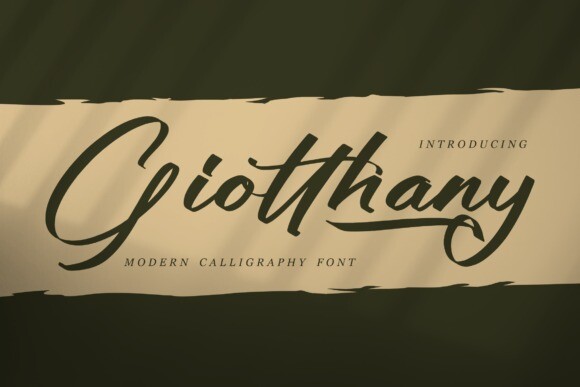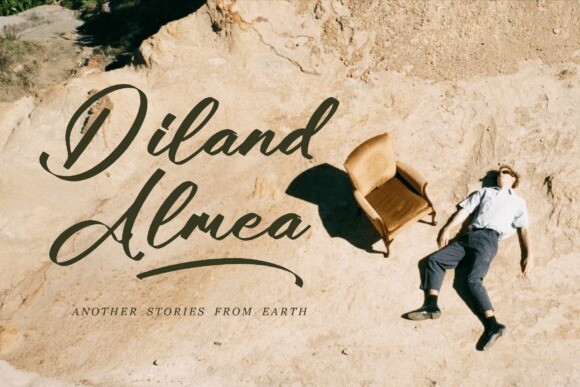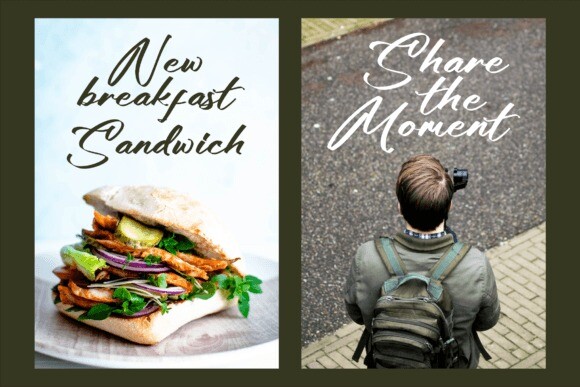
Giotthany Font
Giotthany is an exquisite and modern calligraphy font. You can use it for logos, branding projects, homeware designs, product packaging, mugs, quotes, posters, shopping bags, t-shirts, book covers, name cards, invitation cards, greeting cards, labels, photography, watermark, and special events.